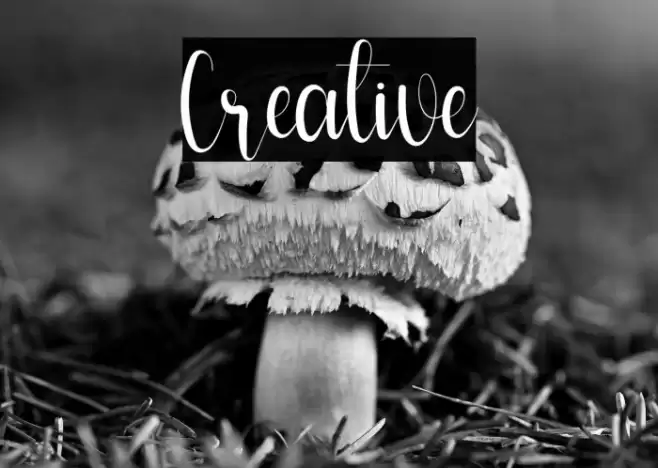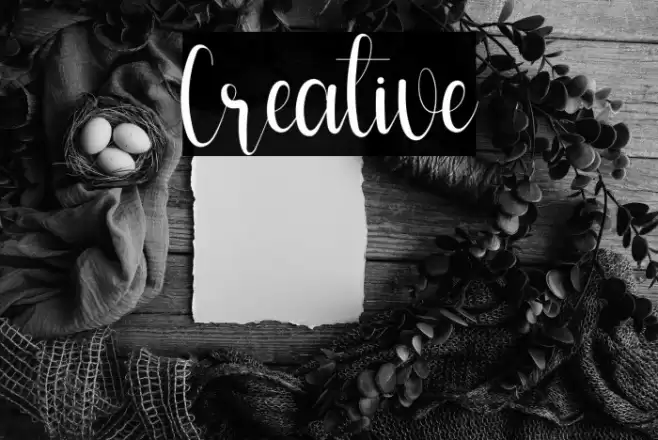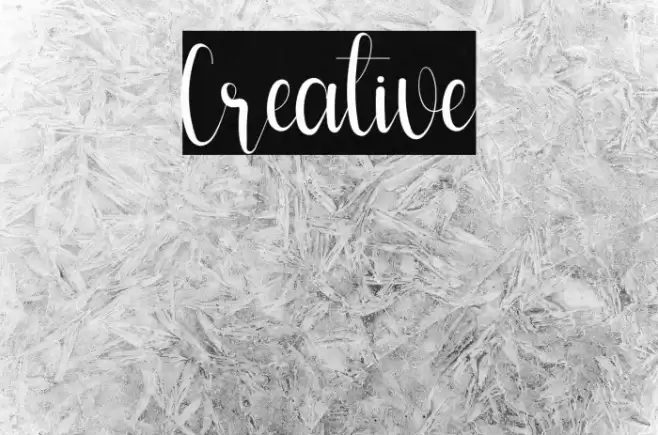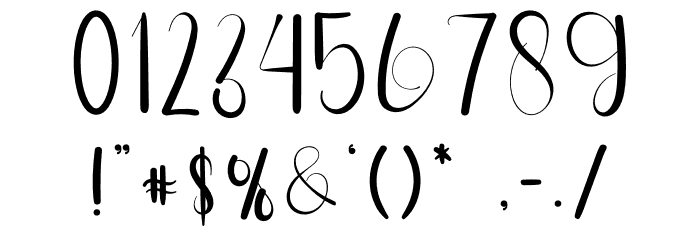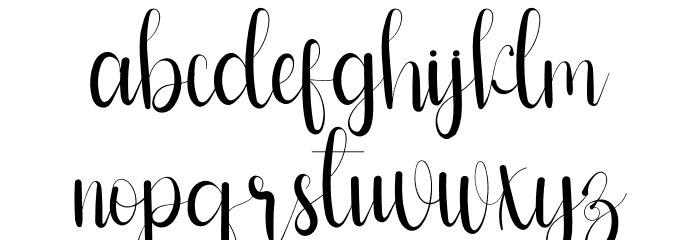
Creative Font
Creative Description
This font features a playful and elegant script style with a modern twist. The uppercase letters are characterized by their tall, flowing lines and graceful loops, creating a sense of movement and fluidity. The lowercase letters maintain a consistent style, with smooth curves and a slightly whimsical touch. Numbers are bold and clear, with a slight slant that complements the overall design. Special characters are creatively integrated, adding to the font's charm. The font's unique style makes it suitable for creative projects that require a touch of sophistication and flair.
A playful and elegant script font with modern, flowing lines from Regular fonts.
- Proposed Projects: Ideal for wedding invitations, greeting cards, branding, and social media graphics.
- Use Case: Logos, Invitations, Decorative text